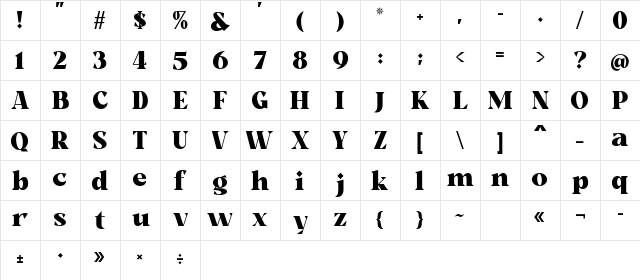
Milk n Balls Demo Black Demo
Design Context for Milk n Balls Demo Typeface
Milk n Balls Demo takes a measured approach to typography — its balanced proportions and neutral character make it a reliable workhorse for both digital and print work.